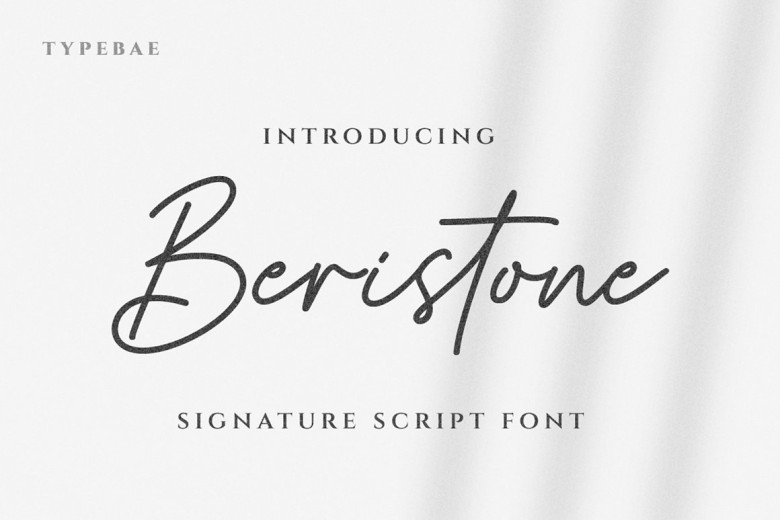
Beristone Font
Beristone features an elegant monoline script signature font with fluid strokes that exude sophistication and personal touches. Additionally, its smooth curves and lines give this font its handwritten quality. Beristone brings a modern and refined aesthetic to any project requiring script fonts.
Beristone Signature Monoline Font